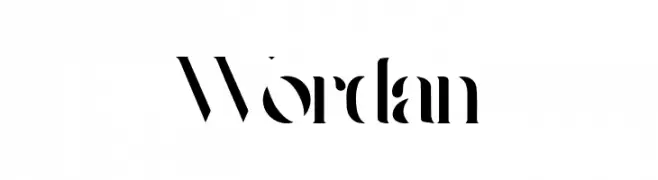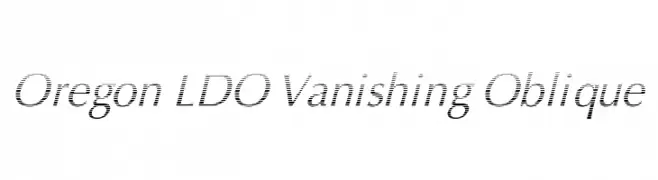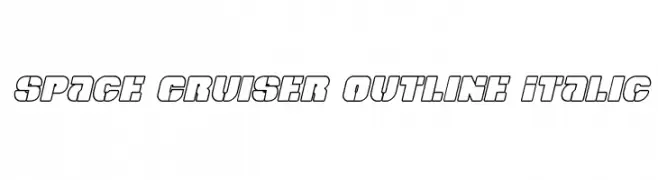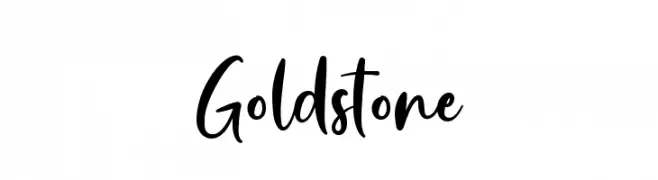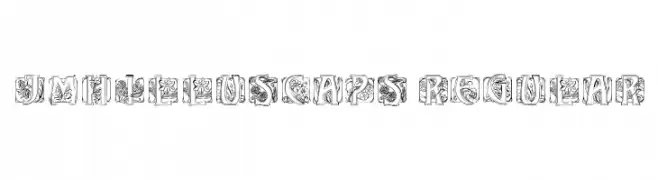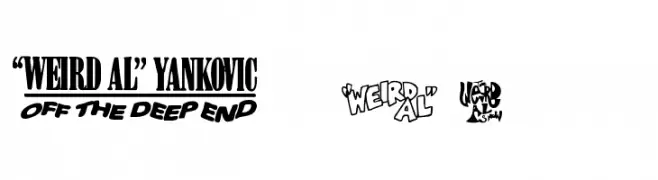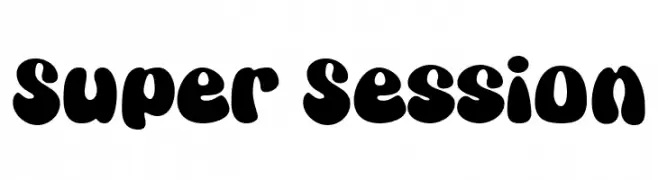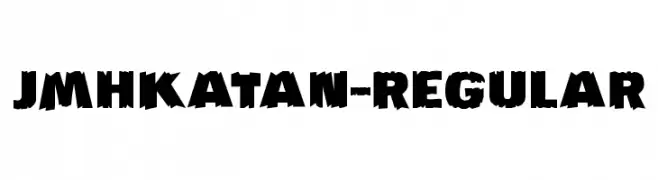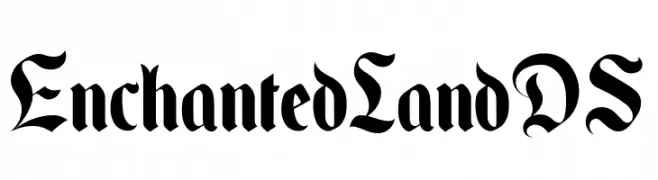
A bold, playful font with thick, rounded characters and a whimsical style.
A bold, playful font with thick, rounded strokes and a hand-drawn feel.
A bold, 3D hollow font with a playful and striking design.
A modern, high-contrast font with sharp angles and smooth curves.
A modern oblique font with a vanishing line effect, offering a dynamic and sleek appearance.
A futuristic, bold outline font with italicized, geometric letterforms.
A lively, expressive handwritten font with dynamic strokes.
An ornate and decorative font with intricate floral designs within each character.
A playful, cartoonish font featuring humorous icons and illustrations.
A sleek, modern font with thin lines and a geometric structure.
A bold, playful font with rounded, bubble-like characters and a retro-modern style.
A bold, rugged font with a distressed, textured appearance.
A bold, decorative blackletter font with intricate and ornate letterforms.
A futuristic, abstract font with geometric shapes and a minimalist design.
A bold, 3D geometric font with a futuristic and industrial design.
A playful, hand-drawn font with a casual and informal style.
A modern, geometric font with sharp angles and unique cut-out designs.
A playful, hand-drawn font with a casual, doodle-like style.
A sleek, modern italic font with consistent stroke width and balanced proportions.
A bold, condensed font ideal for impactful headlines and displays.
A bold, geometric font with a distinctive horizontal striped pattern, perfect for modern and impactful designs.
An elegant script font with flowing, interconnected letters and a sophisticated style.
A bold, italic, futuristic font with sharp, angular lines and tight spacing.
A decorative dingbat font with imaginative cartoon characters.
A bold, textured font with a rugged, vintage appearance.
A bold, spooky, and playful font with a hand-drawn, Halloween-inspired style.
A bold, slab serif font with a Western, rugged style.
A decorative and grungy font with chaotic, distressed design elements.
A modern, elegant handwritten font with medium contrast and fluid strokes.
A bold, geometric font with sharp angles and a modern aesthetic.